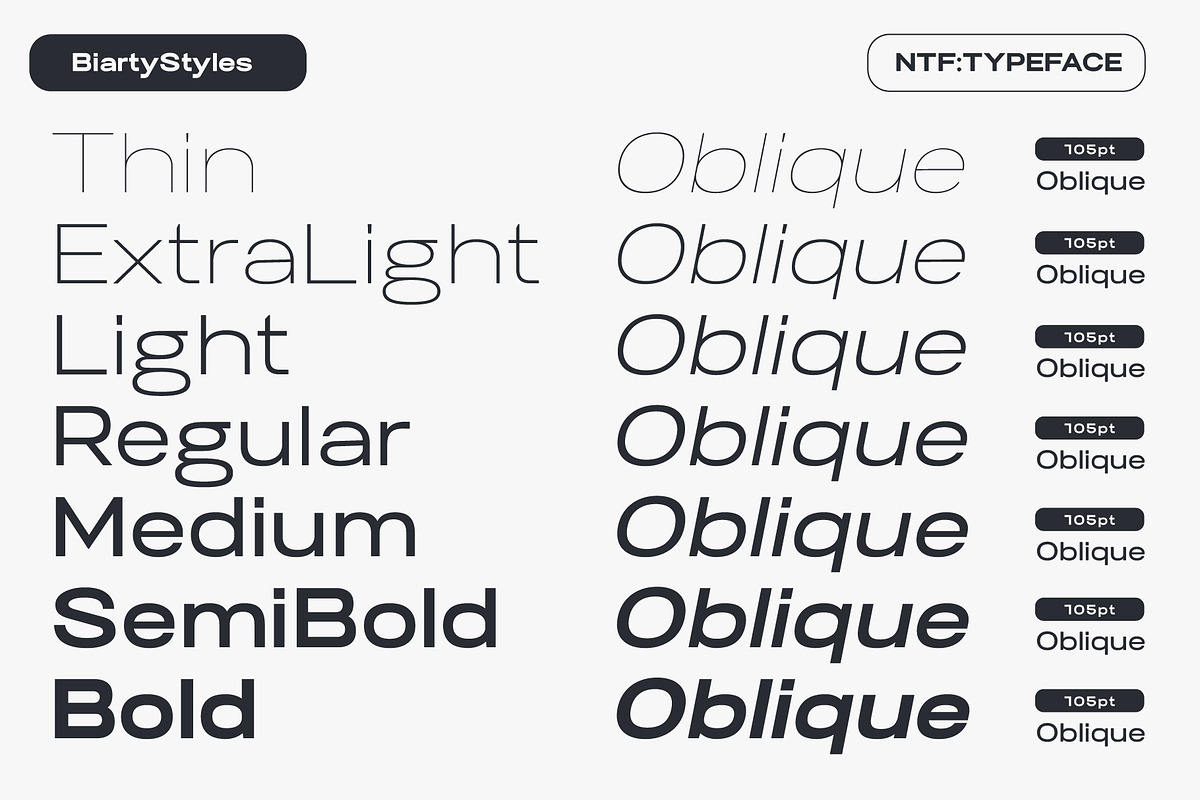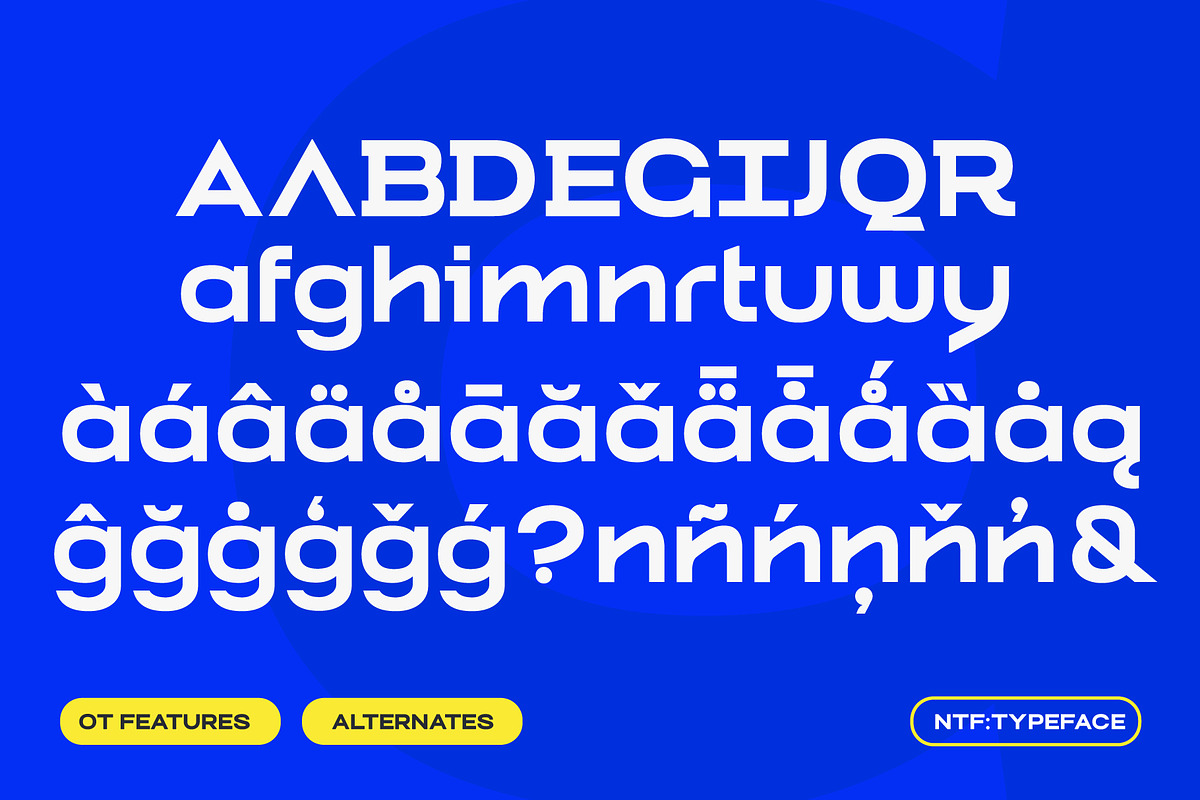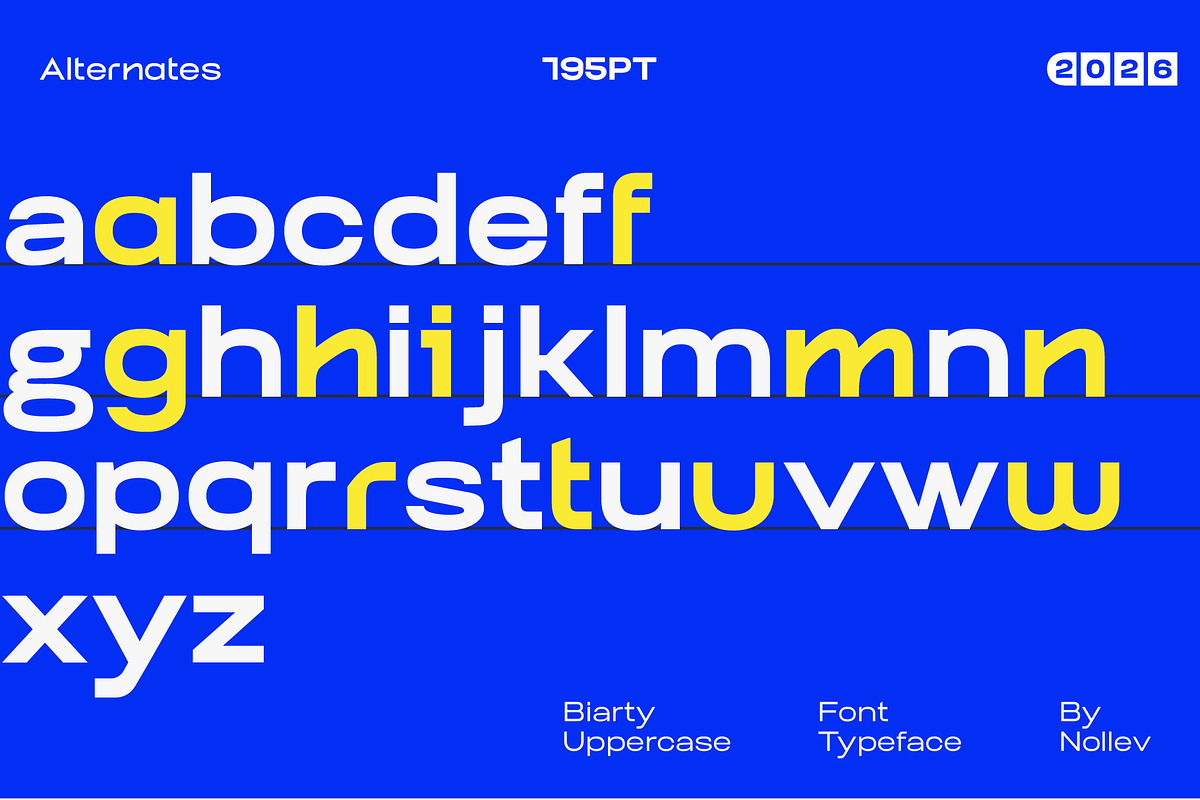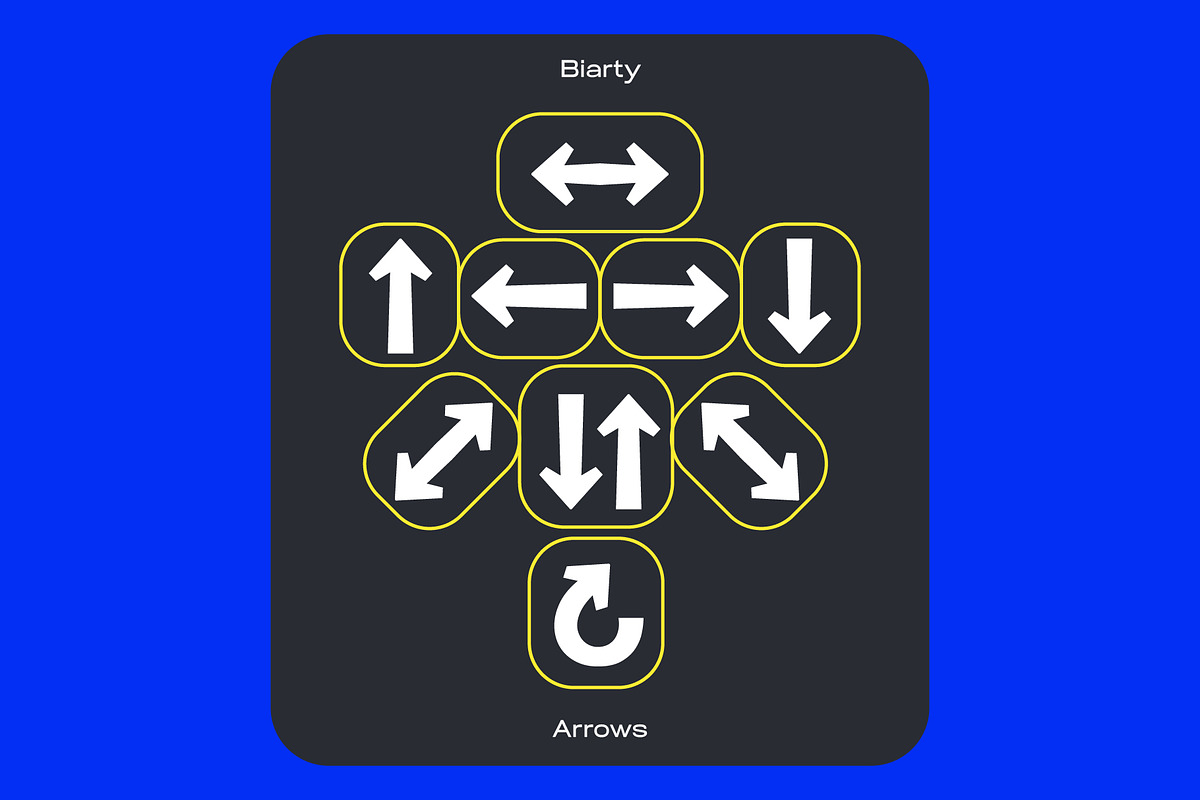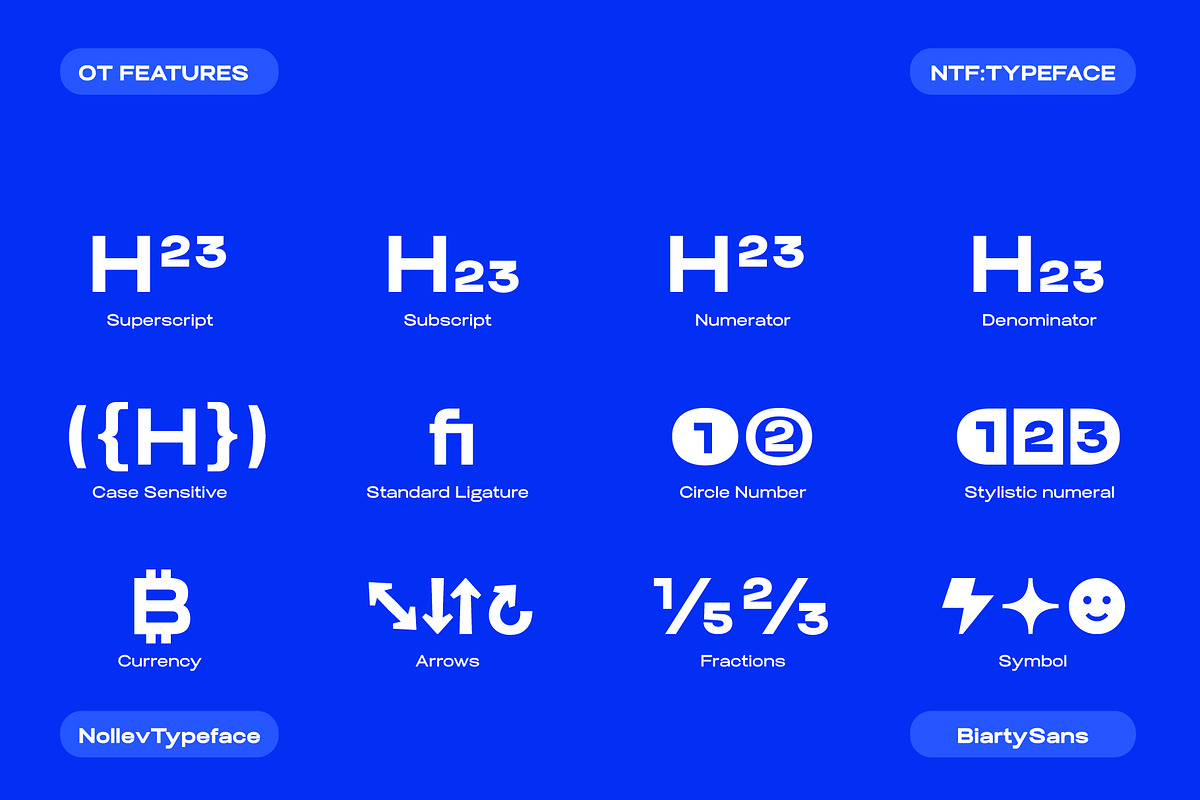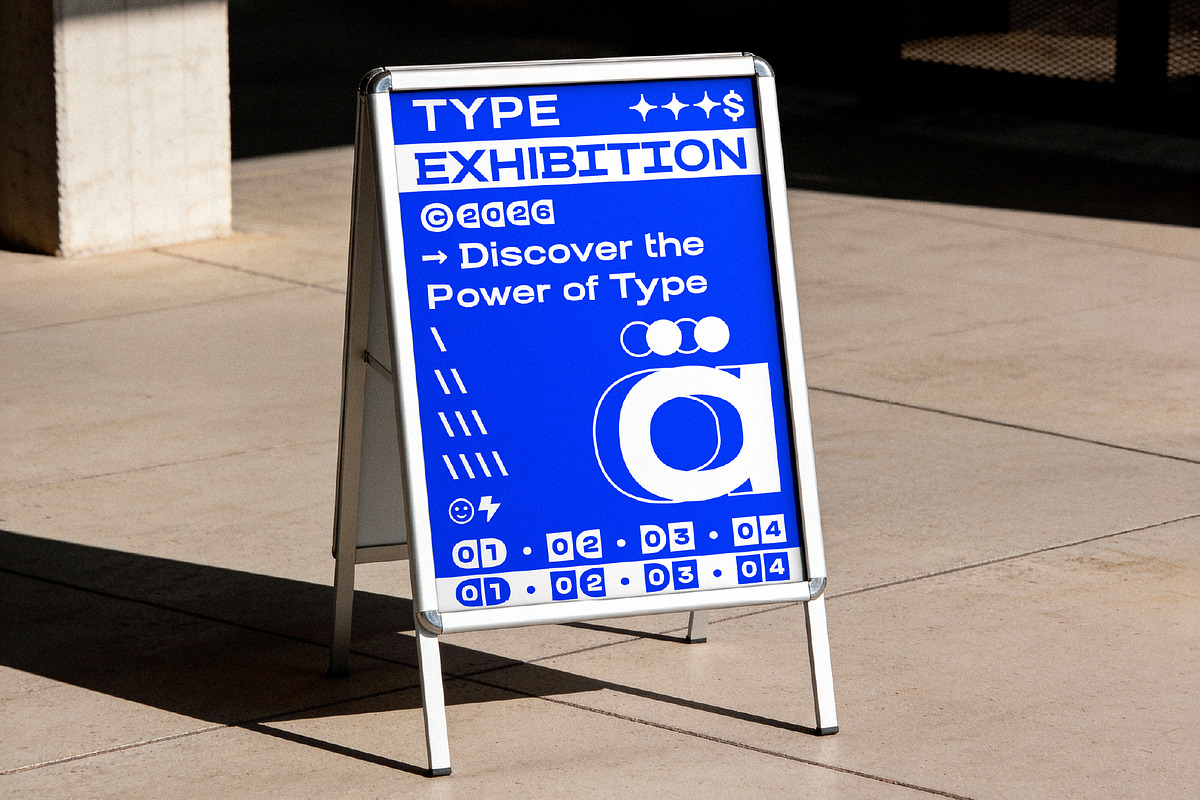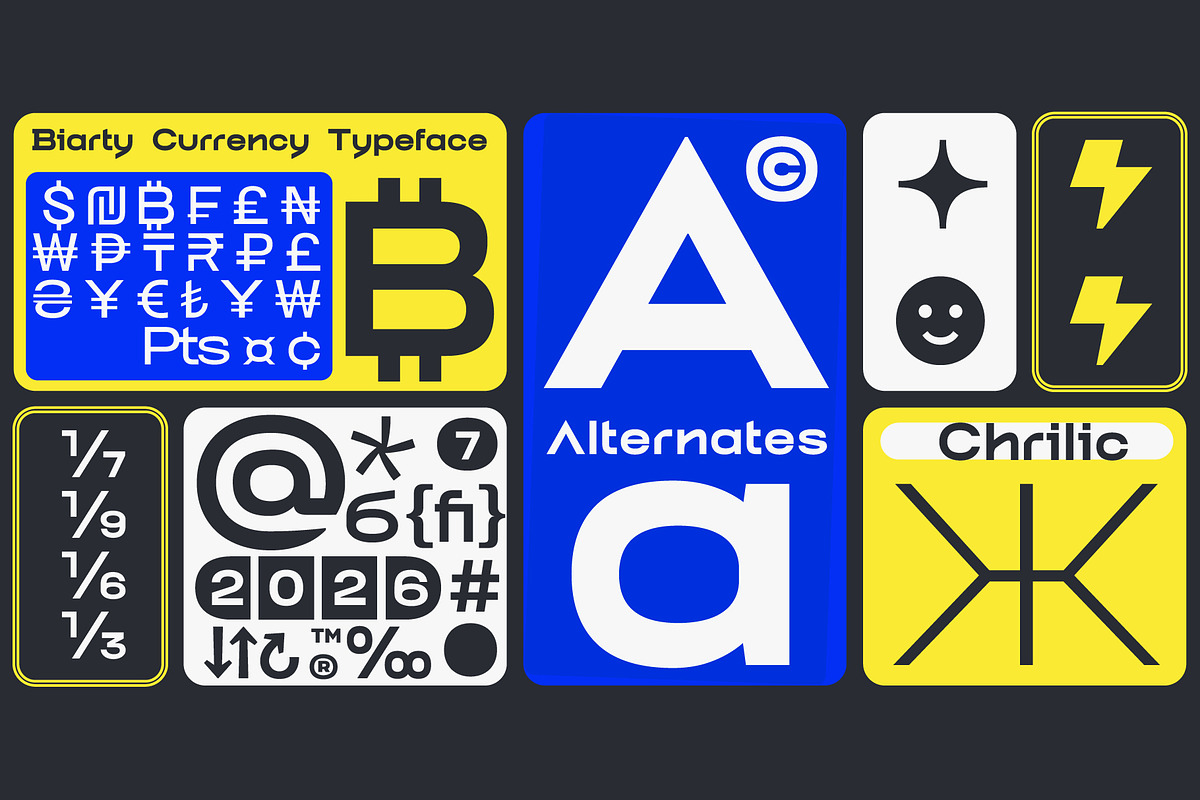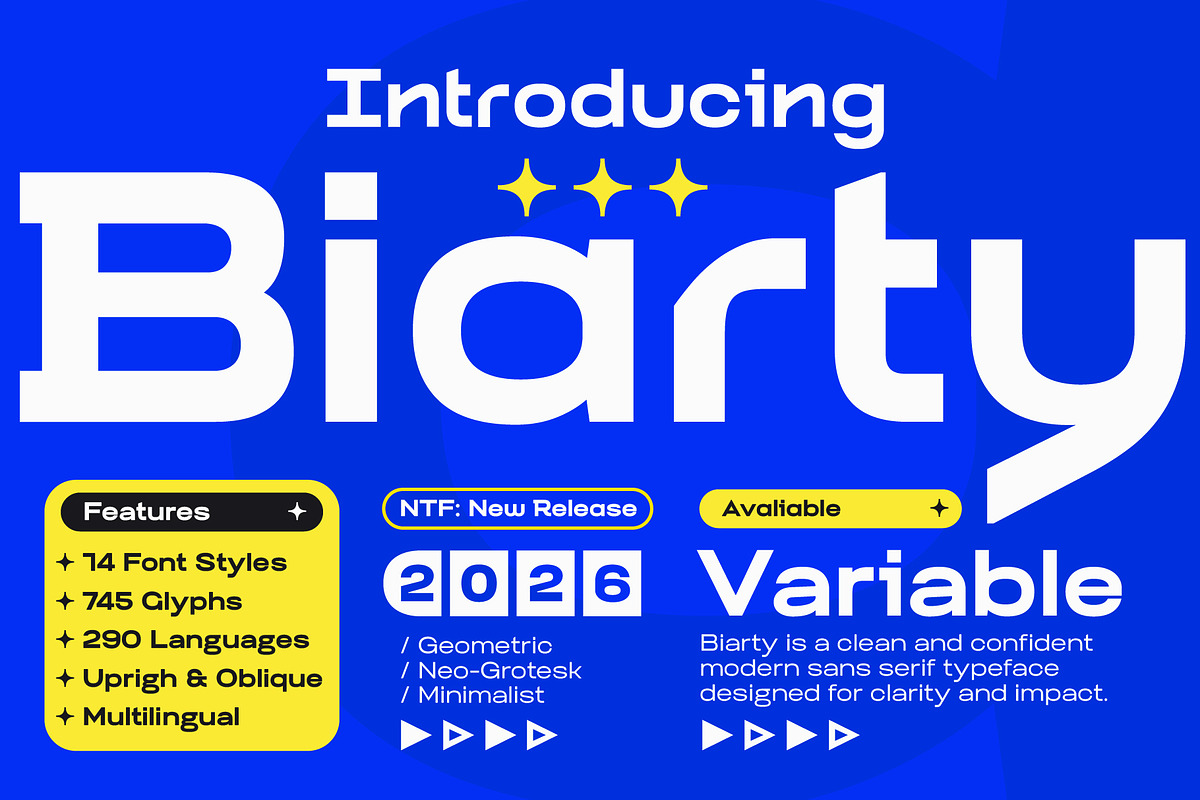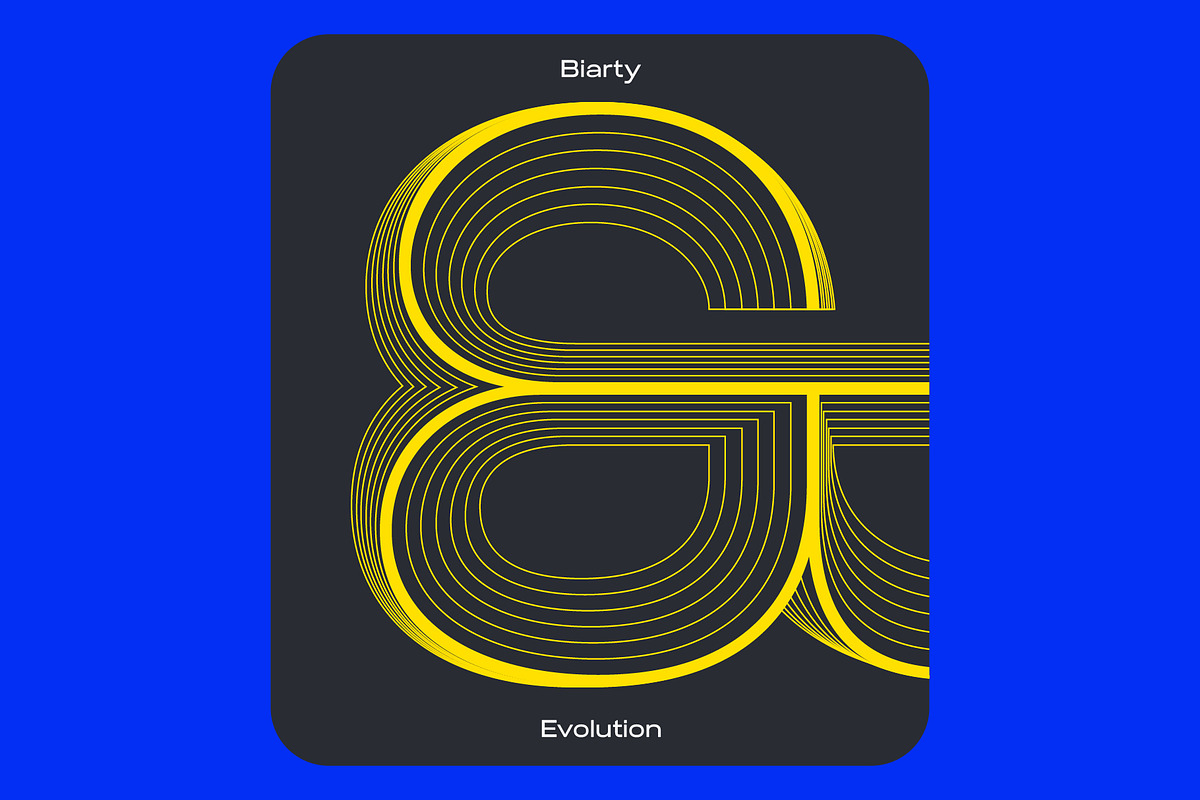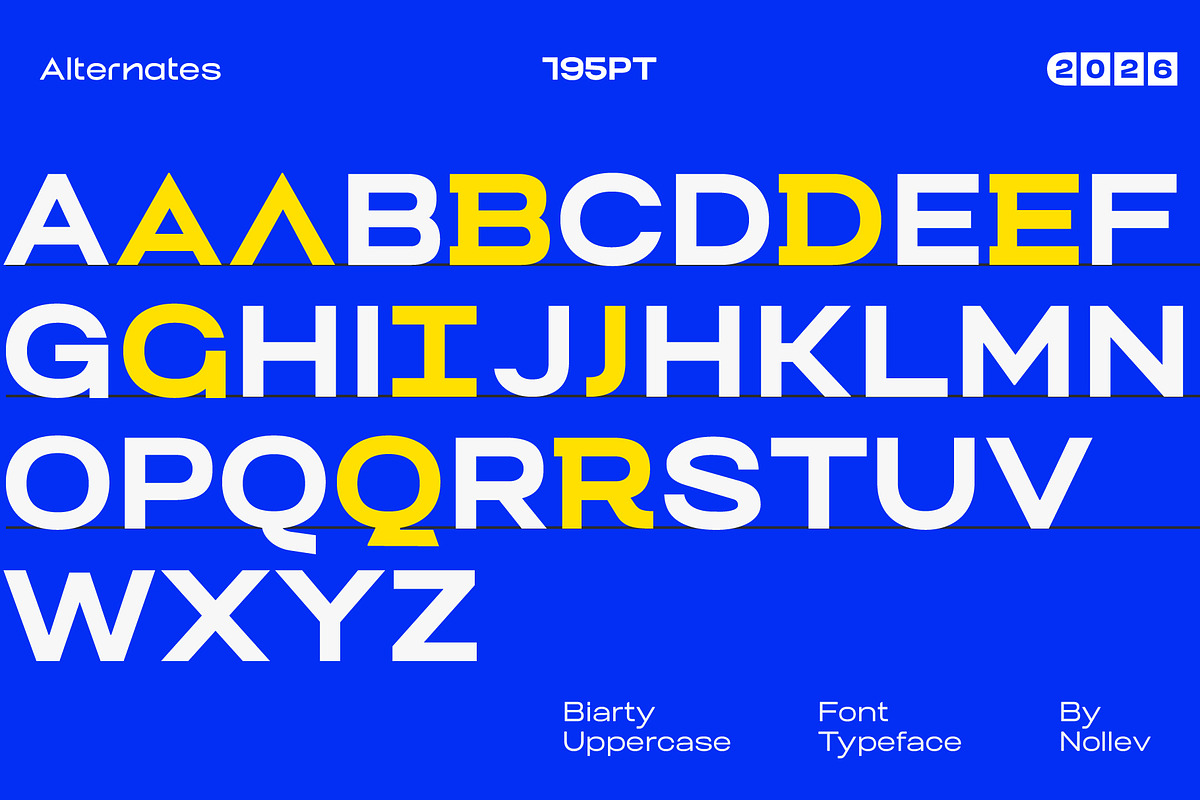
Biarty — Modern Neo-Grotesk Sans
Biarty is a modern neo-grotesk sans serif font designed with clean structure, balanced proportions, and subtle geometric influence. It’s crafted to bring versatility and a contemporary feel to your projects — from branding and editorial layouts to web and UI design.
Biarty comes with 14 styles (from Extra Light to Extra Bold, including Obliques) and a Variable Font version, giving designers complete control over visual tone and flexibility.
With over 745 glyphs and support for 290+ languages, Biarty fits perfectly for global and modern design needs.
Features 14 Styles + Variable Font Multilingual Support (290+ Languages) 745 Glyphs Neo-Grotesk Structure with Geometric Influence Clean, Minimal, and Modern Look